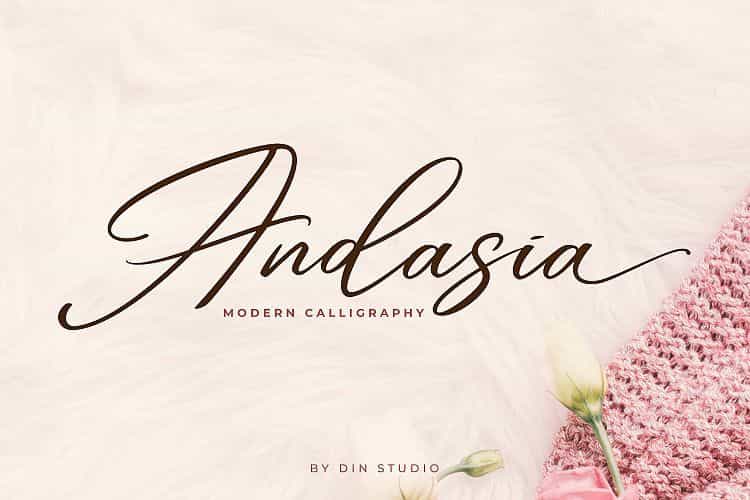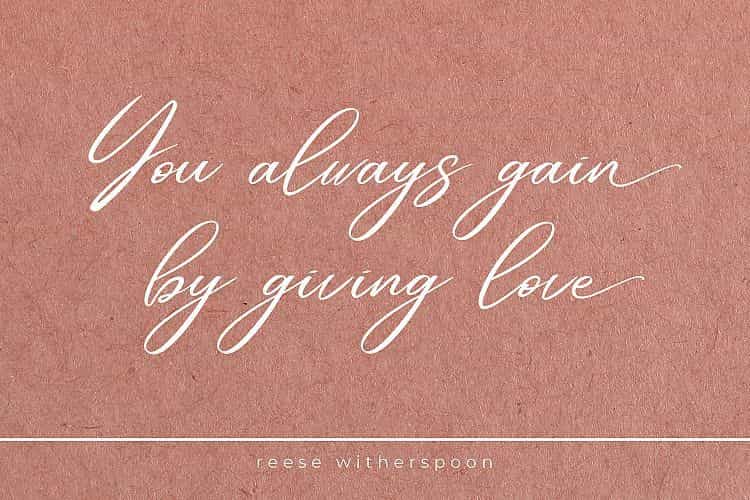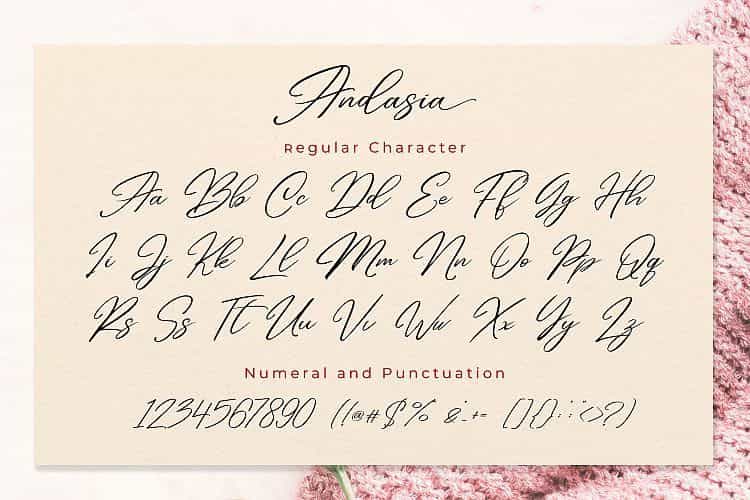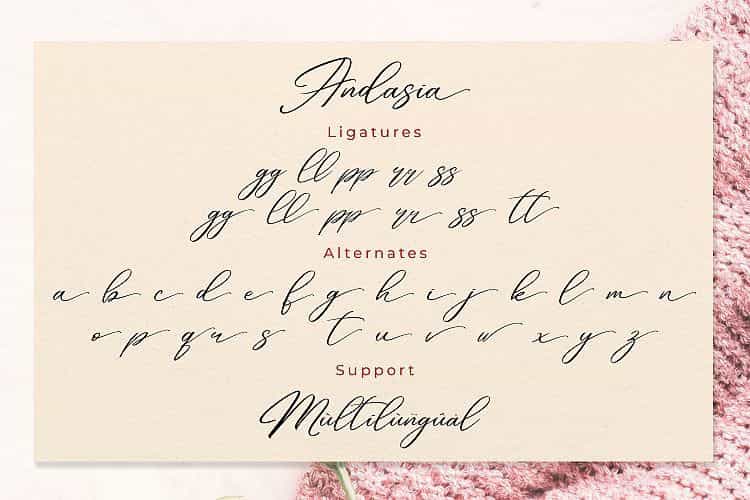
Andasia Script is a very attractive calligraphy with the natural and handwritten style. It comes with a stunning and contemporary typeface which is most suitable for weddings, branding, logotype and quotes.